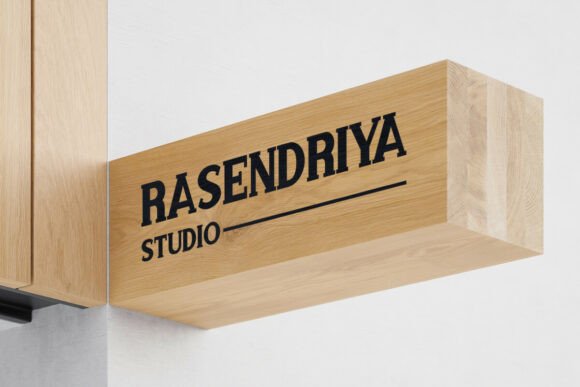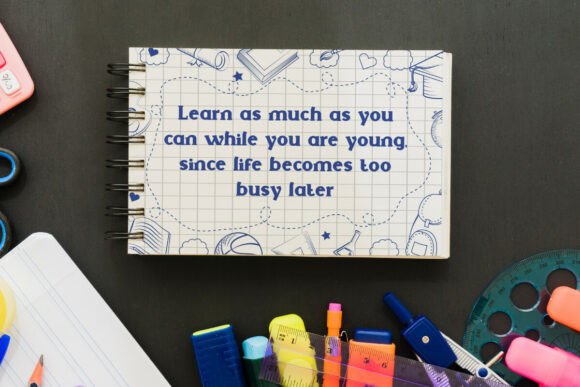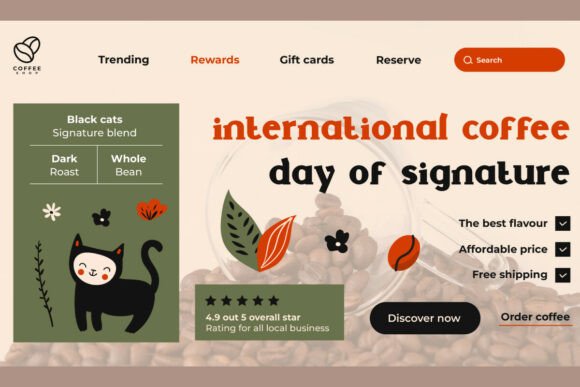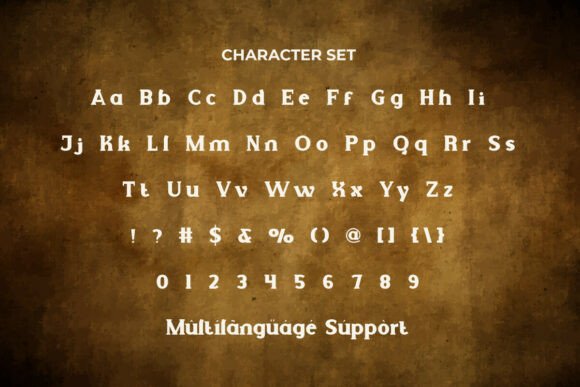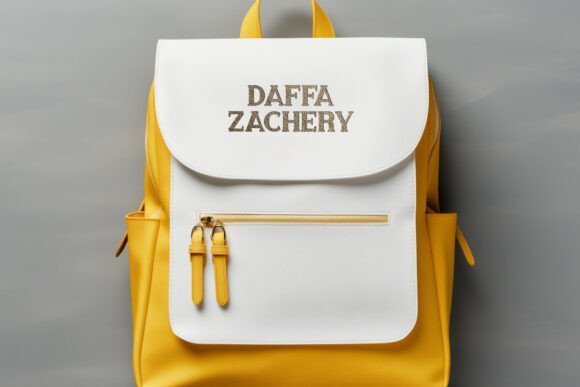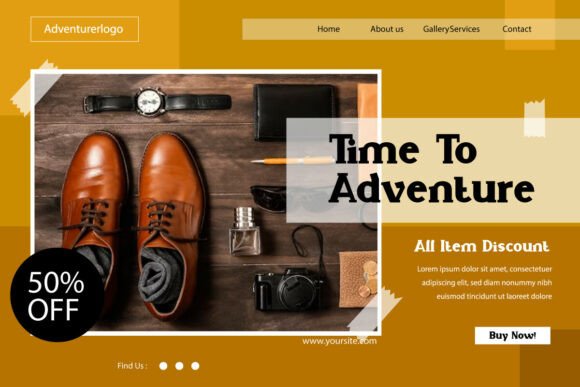
Campus Study Font: The Perfect Blend of Relaxed and Robust
Are you tired of using fonts that are too formal or too bland for your design projects? Look no further than the Campus Study font, a laid-back and robust casual font that’s perfect for adding a friendly and inviting touch to your work. In this article, we’ll take a closer look at the Campus Study font, its features, and why it’s an excellent choice for designers and crafters.
A Friendly and Inviting Typeface
Campus Study is a casual font that’s designed to bring a relaxed, yet confident look to your design projects. Its simple, slightly rounded structure makes it approachable and easy to read, while its robust design ensures that it remains legible even in smaller sizes. This font is perfect for educational materials, packaging, website headers, and informational graphics, making it a versatile and reliable choice for any design project.
Key Features of Campus Study Font
• Laid-back and robust design: Campus Study has a unique blend of relaxed and robust design elements, making it perfect for adding a friendly and inviting touch to your work.
• Simple and slightly rounded structure: The font’s simple and slightly rounded structure makes it easy to read and approachable, while its robust design ensures that it remains legible even in smaller sizes.
• Excellent legibility: Campus Study is designed to be clear and easy to read, even in smaller sizes, making it perfect for use in a variety of design projects.
• Versatile and reliable: This font is perfect for educational materials, packaging, website headers, and informational graphics, making it a versatile and reliable choice for any design project.
Why Choose Campus Study Font?
So why choose Campus Study font for your design projects? Here are just a few reasons why this font is an excellent choice:
• Approachable and friendly: Campus Study has a unique blend of relaxed and robust design elements, making it perfect for adding a friendly and inviting touch to your work.
• Reliable readability: The font’s simple and slightly rounded structure ensures that it remains clear and easy to read, even in smaller sizes.
• Versatile: Campus Study is perfect for use in a variety of design projects, from educational materials to packaging and website headers.
• Dependable: This font is a reliable choice for designers and crafters who need a high-quality font that will deliver results.
Use Cases for Campus Study Font
Campus Study font is perfect for a wide range of design projects, including:
• Educational materials: Use Campus Study font to create engaging and easy-to-read educational materials, such as textbooks, workbooks, and study guides.
• Packaging: Add a friendly and inviting touch to your packaging with Campus Study font, perfect for product labels, packaging inserts, and more.
• Website headers: Use Campus Study font to create eye-catching and easy-to-read website headers that will help your website stand out.
• Informational graphics: Campus Study font is perfect for use in informational graphics, such as infographics, brochures, and flyers.
In conclusion, Campus Study font is a laid-back and robust casual font that’s perfect for adding a friendly and inviting touch to your design projects. Its simple, slightly rounded structure makes it approachable and easy to read, while its robust design ensures that it remains legible even in smaller sizes. With its versatile and reliable design, Campus Study font is an excellent choice for designers and crafters who need a high-quality font that will deliver results.
Whether you’re creating educational materials, packaging, website headers, or informational graphics, Campus Study font is a fantastic choice for giving your text a grounded, honest, and comfortable feel. So why not give it a try and see the difference it can make in your design projects?